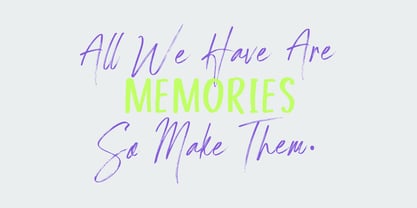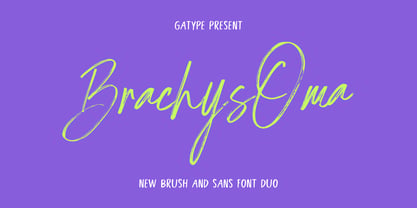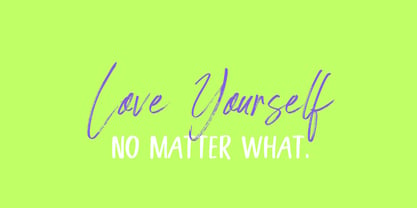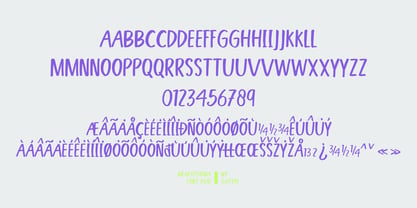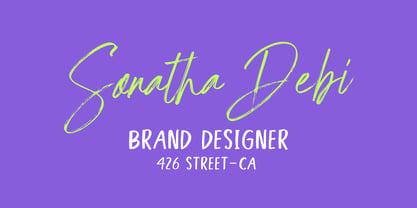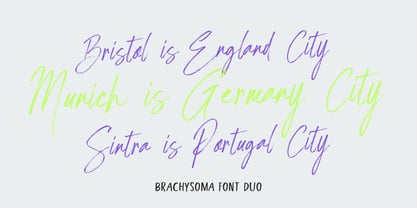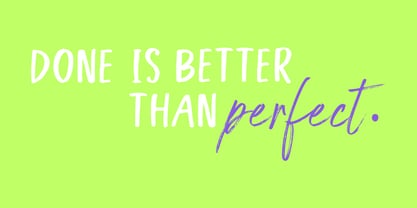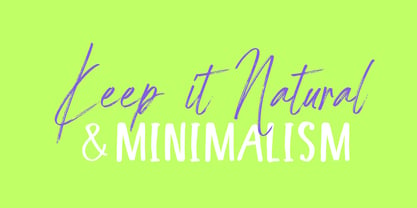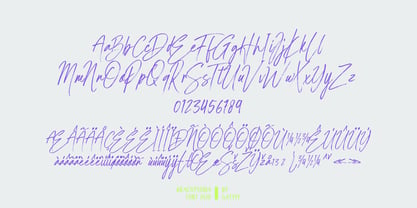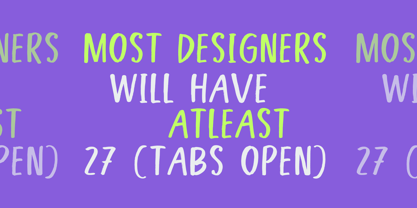
BrachysOma
by Gatype
The BrachysOma Font Family was designed by khaidir and published by Gatype. BrachysOma contains 2 styles and family package options. More about this family
BrachysOma Caps is a unique organic handwritten font perfect for elevating branding, adding personal touches to invitations, and enhancing product packaging. This font strikes a balance between modern simplicity and authentic charm. It features a full set of uppercase and lowercase letters, numbers, punctuation, and multilingual symbols. BrachysOma Caps also offers lowercase beginning and ending swashes, ligatures, and bonus swashes to give your designs a touch of elegance and flair.